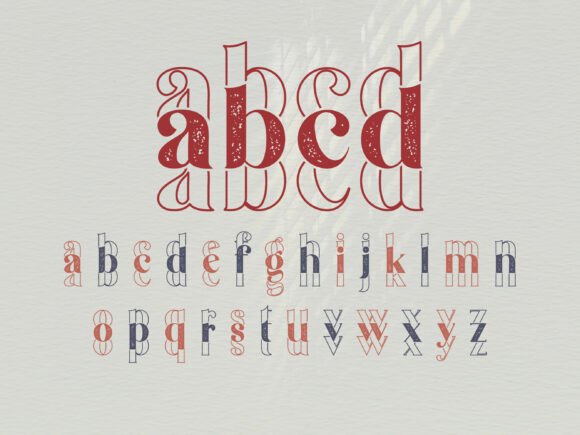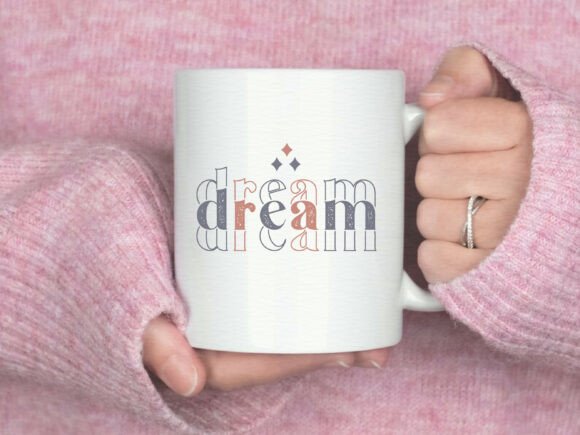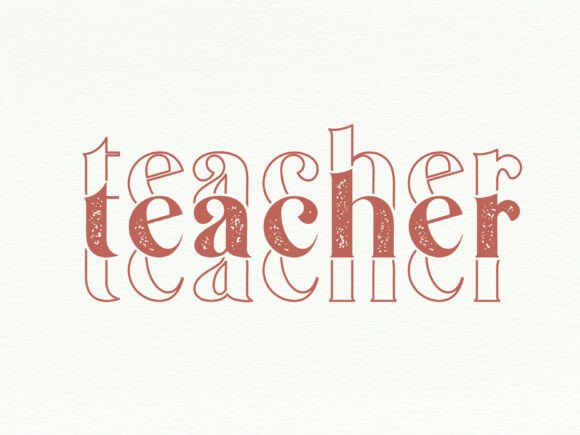
Introduction to Real Stacked Retro Font
Have you ever found yourself rummaging through your grandmother’s attic, uncovering old photographs and dusty typewriters that spark a wave of nostalgia? For designers, these moments can be the perfect catalyst for a creative project. The search for the perfect font to evoke that vintage charm often leads us down a rabbit hole of high-quality design resources. And, we’re excited to share with you one such gem – the Real Stacked Retro Font.
This unique font is a masterclass in texture and contrast, featuring a “real stacked” design where solid, textured letterforms are layered behind elegant hollow outlines. The result is a sophisticated 3D effect that adds a touch of sophistication to any design. Whether you’re working on a free download project or a paid gig, this font is a valuable addition to your design arsenal.
Key Features of Real Stacked Retro Font
- High-quality, unique design that adds a touch of nostalgia to any creative project
- Designed with a retro aesthetic, perfect for vintage-inspired designs, advertisements, and packaging
Honest Review: Real Stacked Retro Font
I recently had the chance to play around with the Real Stacked Retro Font, and I have to say it’s been a fun addition to my design toolbox. ✨ This font is perfect for anyone looking to add a touch of nostalgia to their creative project. The high-quality design and unique aesthetic make it a valuable resource for designers.
One of the things I appreciate about this font is its versatility. It’s great for titles, headings, and even body text. The transparent background option allows for seamless integration with any design, making it a versatile tool for any creative project.
- Unique, high-quality design
- Perfect for adding a touch of nostalgia to creative projects
- Not suitable for all types of designs (e.g. modern, minimalist)
- Might be too kitschy for some designers’ tastes
Overall, I’m really impressed with the Real Stacked Retro Font. It’s a great addition to any designer’s toolbox, and it’s a free download to boot! I can see myself using this font again and again for future creative projects. Just be aware of its limitations, and you’ll be golden.
How to Use Real Stacked Retro Font
The Real Stacked Retro Font is ideal for creative projects that require a high-quality, vintage aesthetic. Some common use cases include:
- Designing a website or blog with a retro theme
- Creating a social media graphic or advertisement
- Designing a poster or flyer for a music event or concert